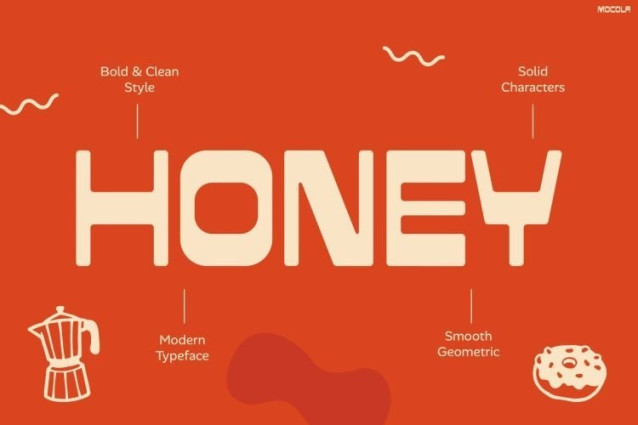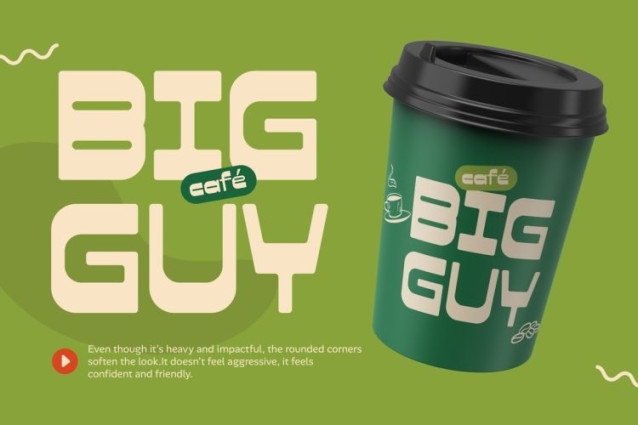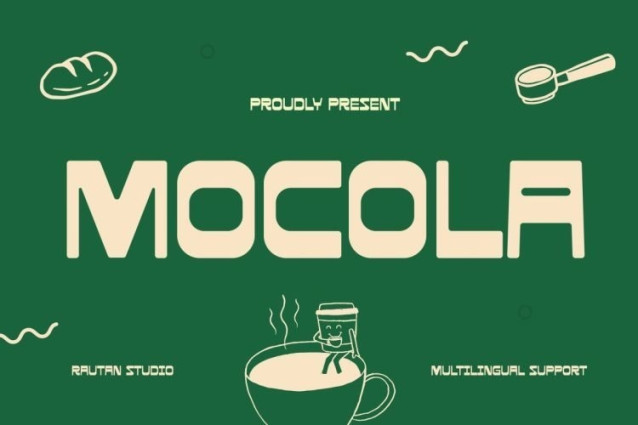
Mocola Font is a bold, retro-inspired display font with thick, geometric letterforms and smooth, rounded corners. Its heavy proportions and compact structure give it a solid, confident presence that remains friendly and approachable rather than aggressive.
Best suited for cafe branding, food and beverage packaging, restaurant signage, product labels, and playful marketing graphics. It excels in large display sizes, making it a natural fit for headlines, posters, and merchandise designs where the distinct, chunky shapes can stand out.